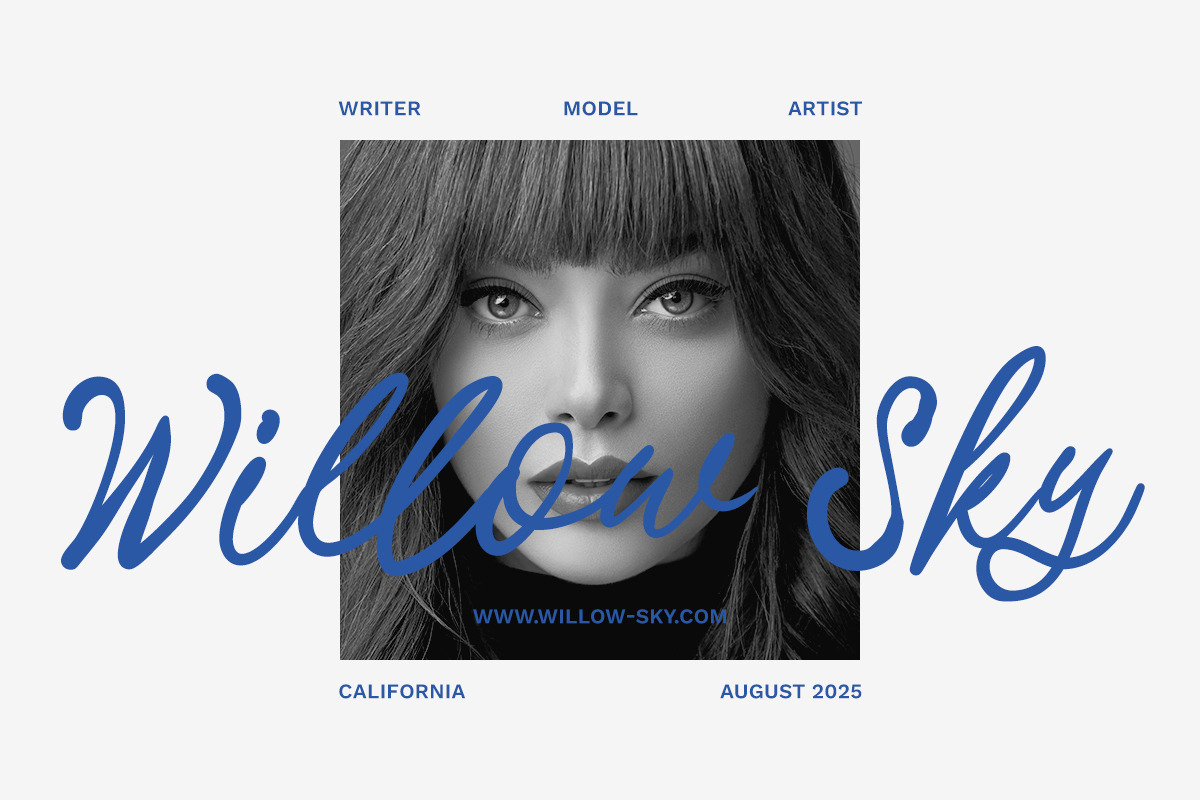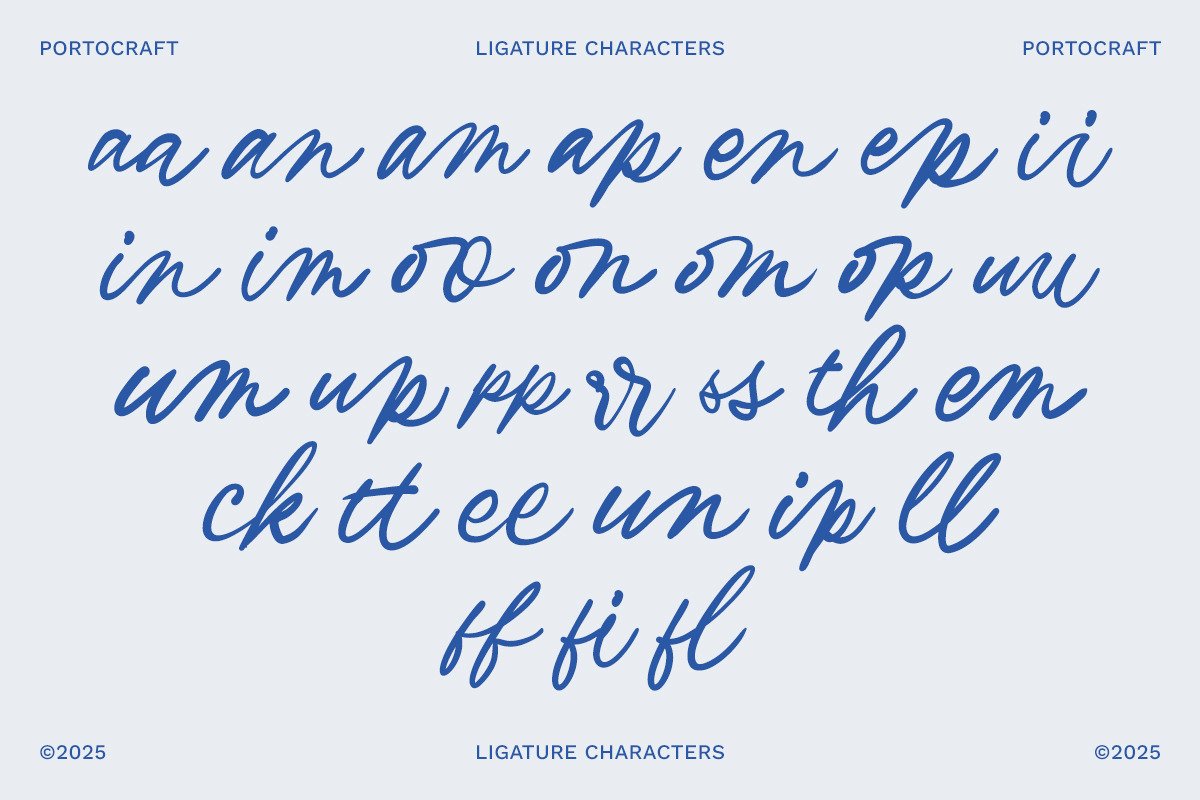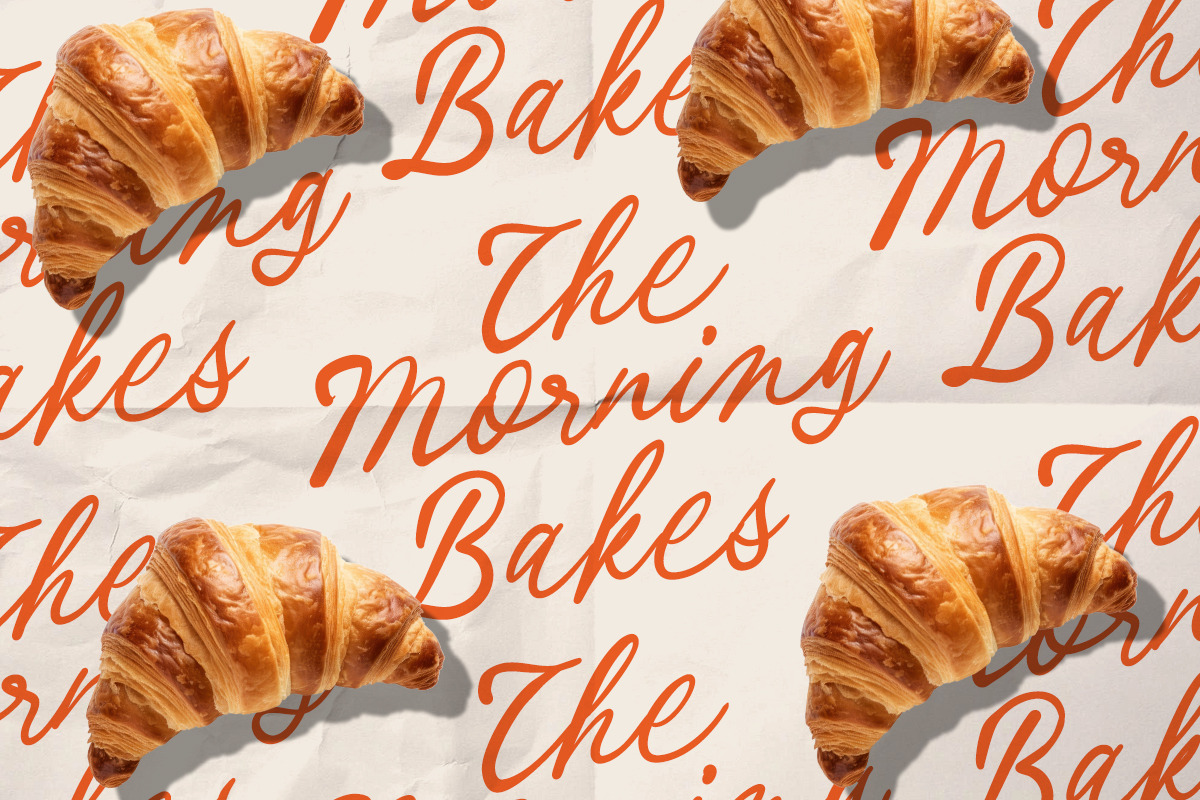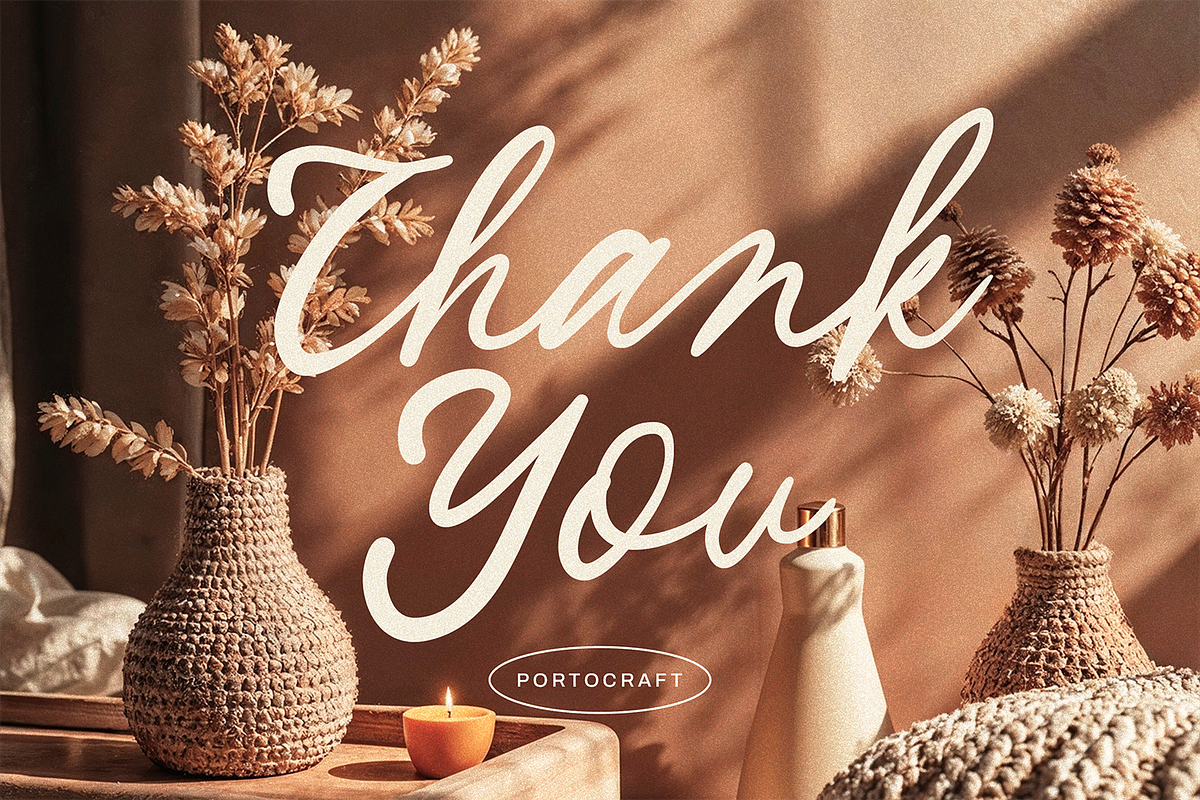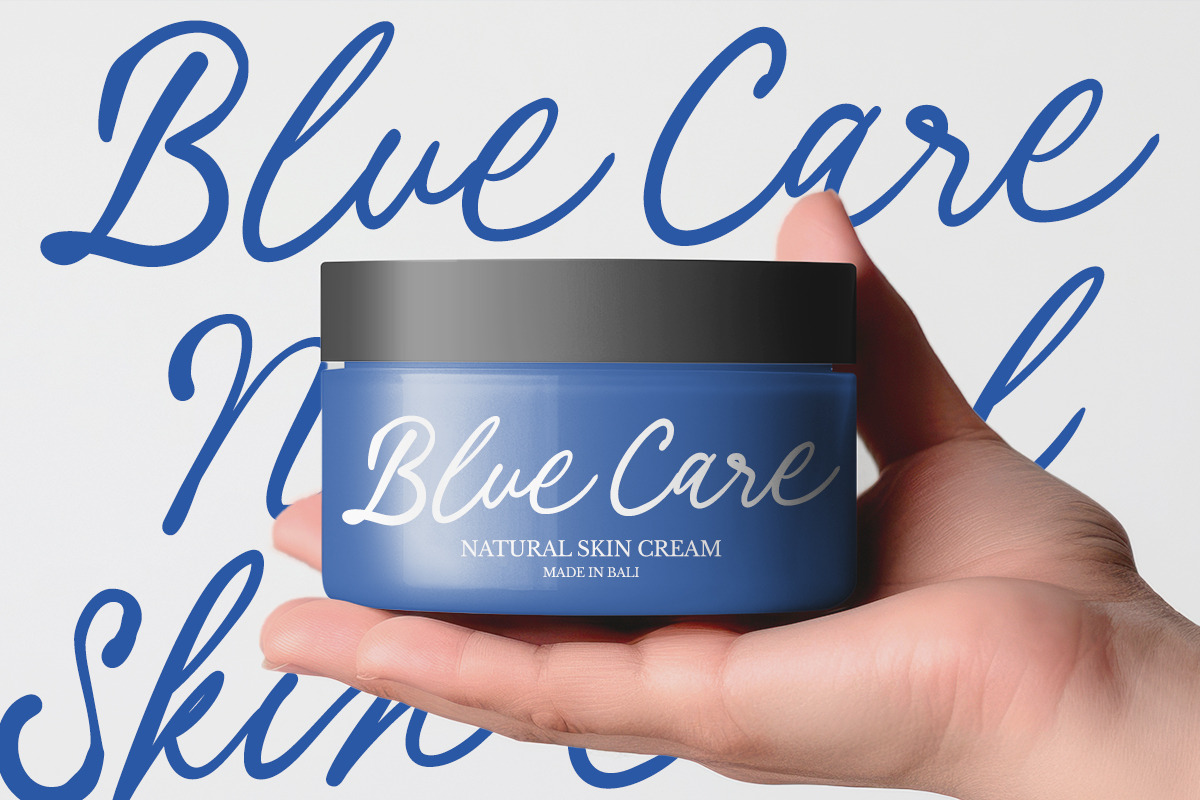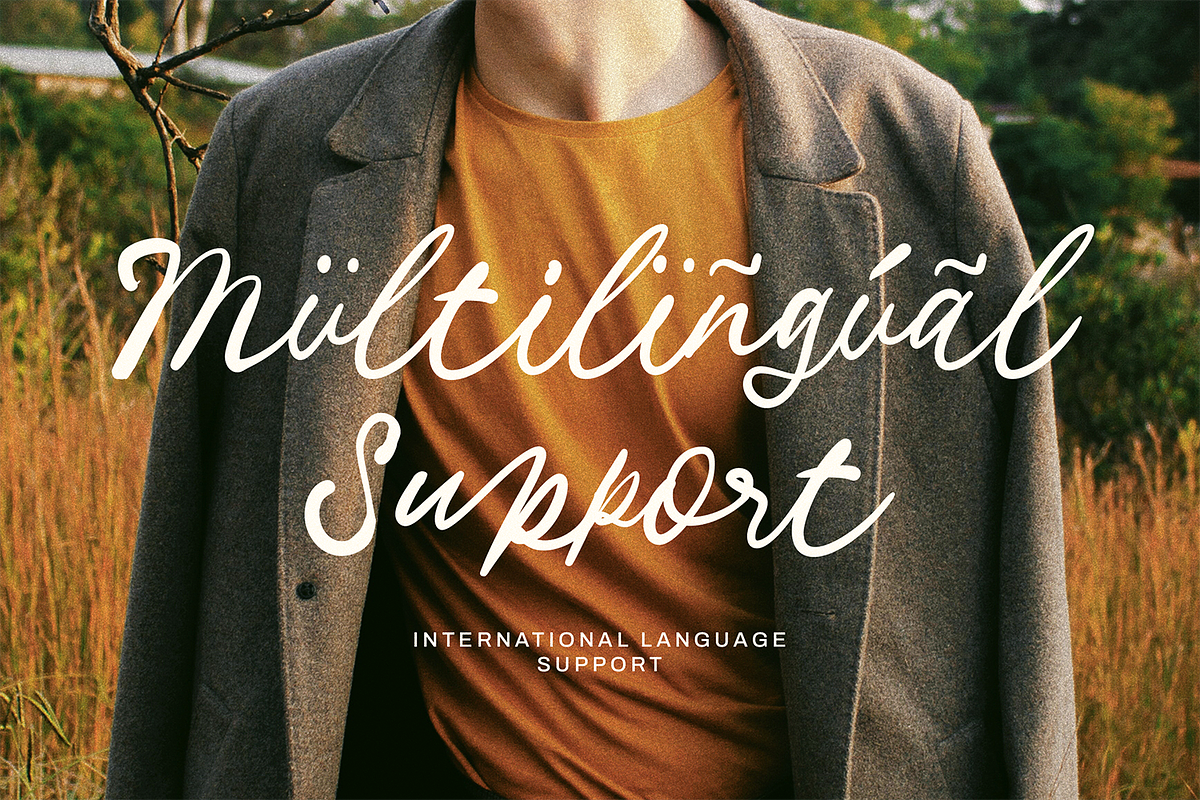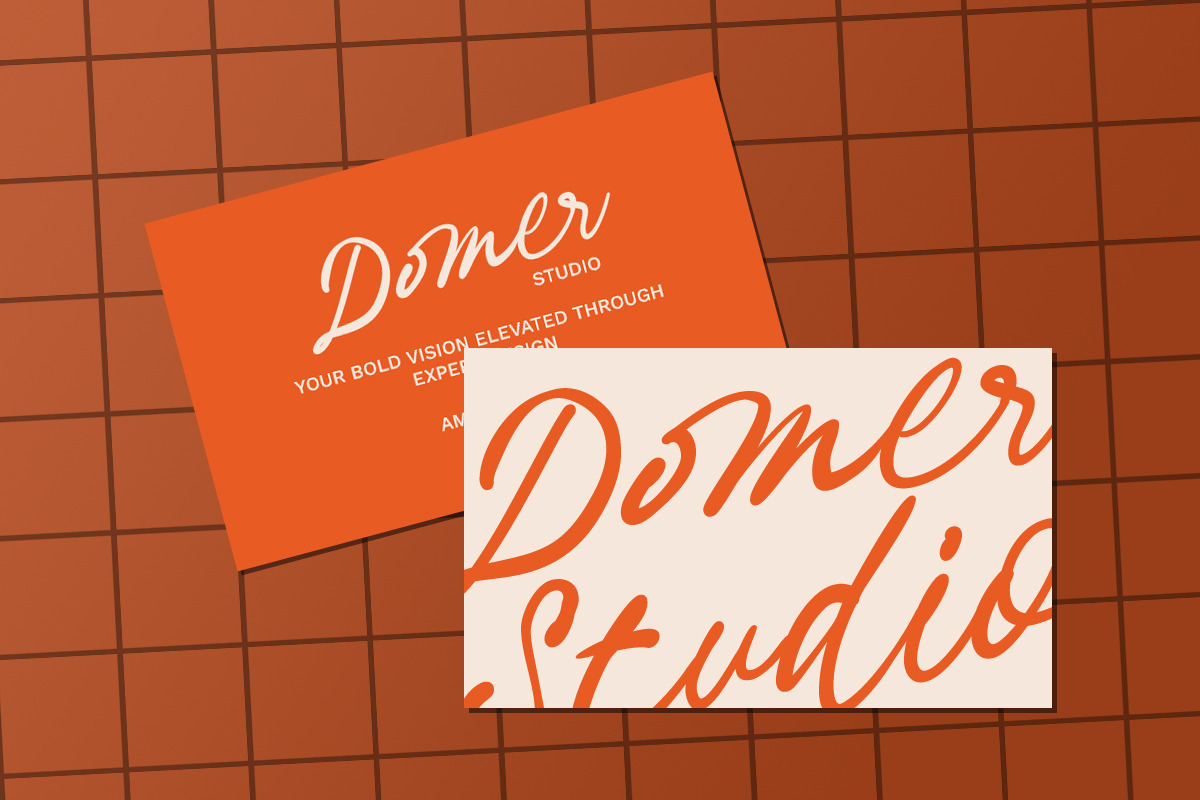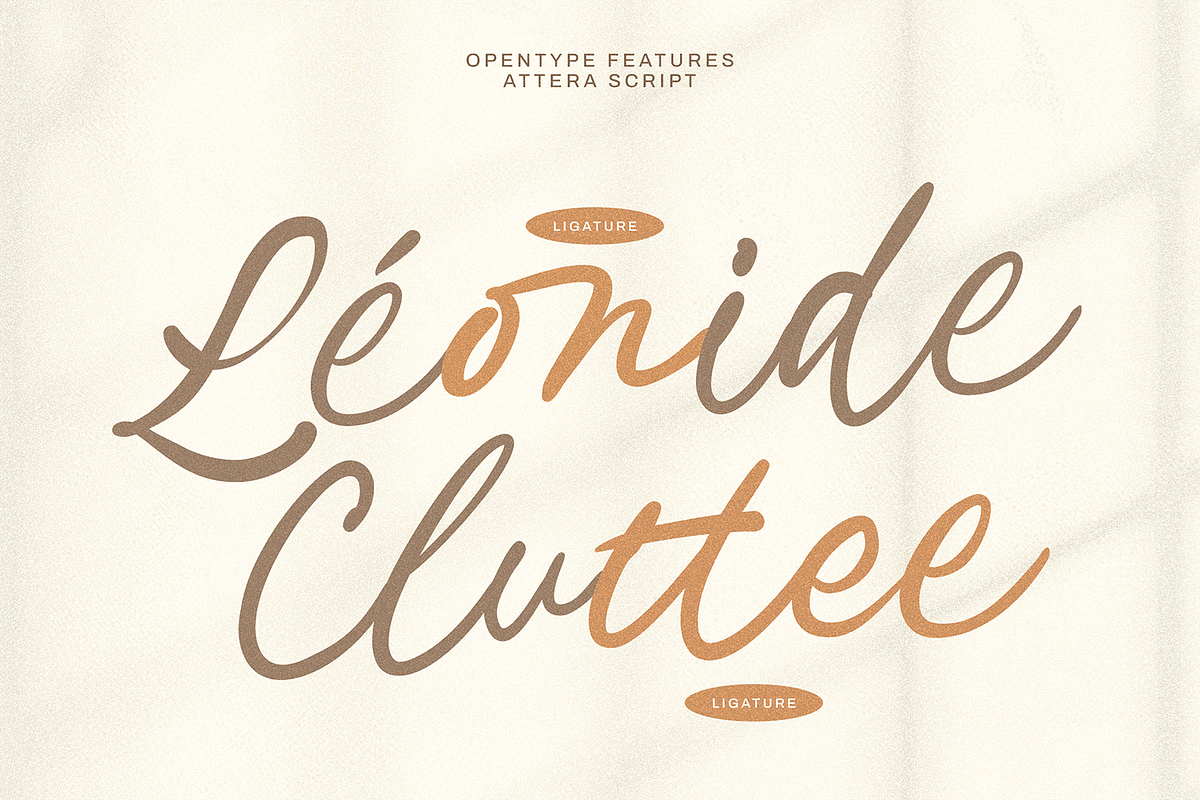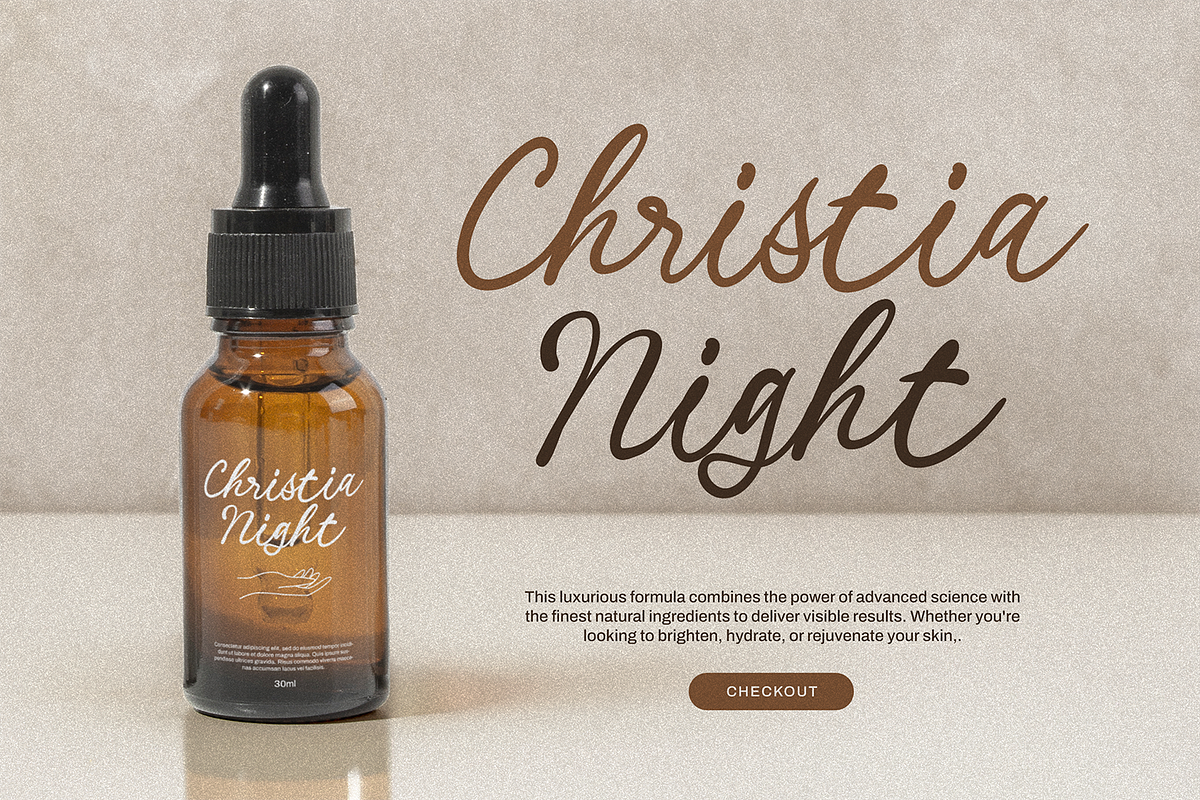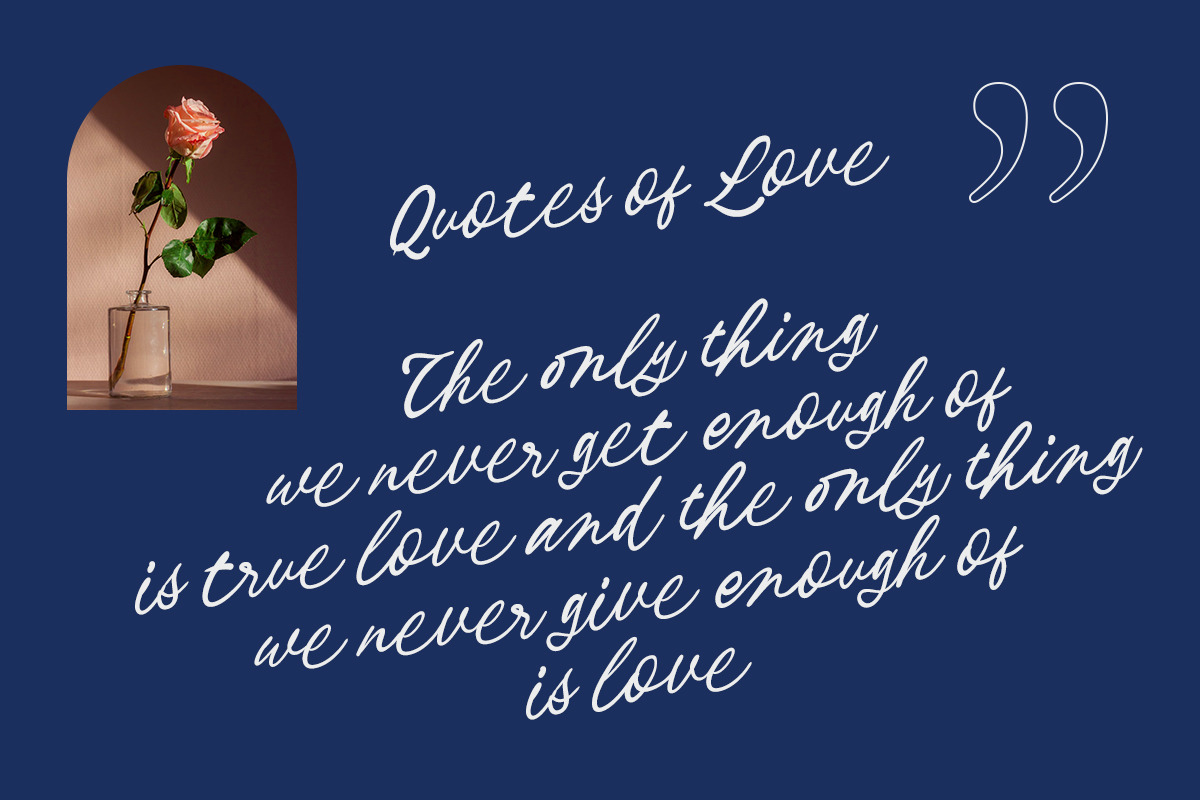
Atterra Script Handwritten
Atterra Script is a warm and charming handwritten script font that captures the essence of elegance with a casual feel. Designed with smooth curves and subtle contrast, this font gives your design a personal, hand-crafted touch.
Perfectly suited for branding projects, wedding invitations, product packaging, greeting cards, and social media graphics, Atterra Script brings softness and personality to every letter.
- Unique Letterforms